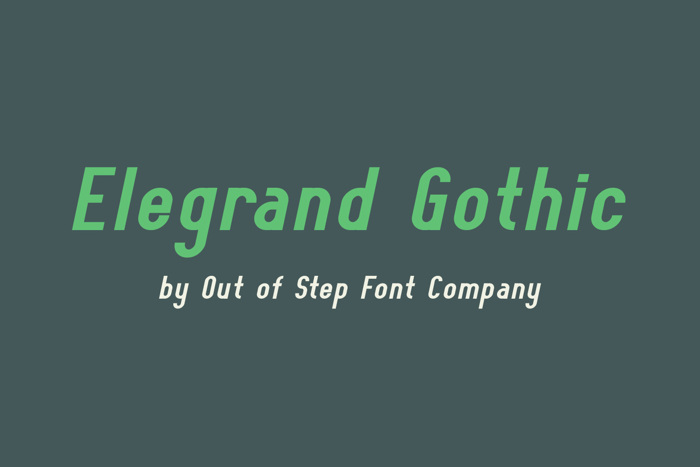
Elegrand Gothic Font
Elegrand Gothic is a family of neo-grotesque gothic typefaces, and is our largest project thus far. Elegrand is a modern take on traditional sans-serif type, and is comprised of modular modern gothic forms based around geometric curves. Glyphs include uppercase and lowercase glyph sets, and European characters are supplied with accents. The typefaces are provided with 227 glyphs.
All glyphs in the basic glyph set are provided in bold, italic (oblique), bold-italic, inline, and inline italic variations. Elegrand Gothic has been expertly kerned with both kern table and GPOS kerning for balanced text presentation. A wide range of options and styles ensure Elegrand Gothic fits in all your projects.